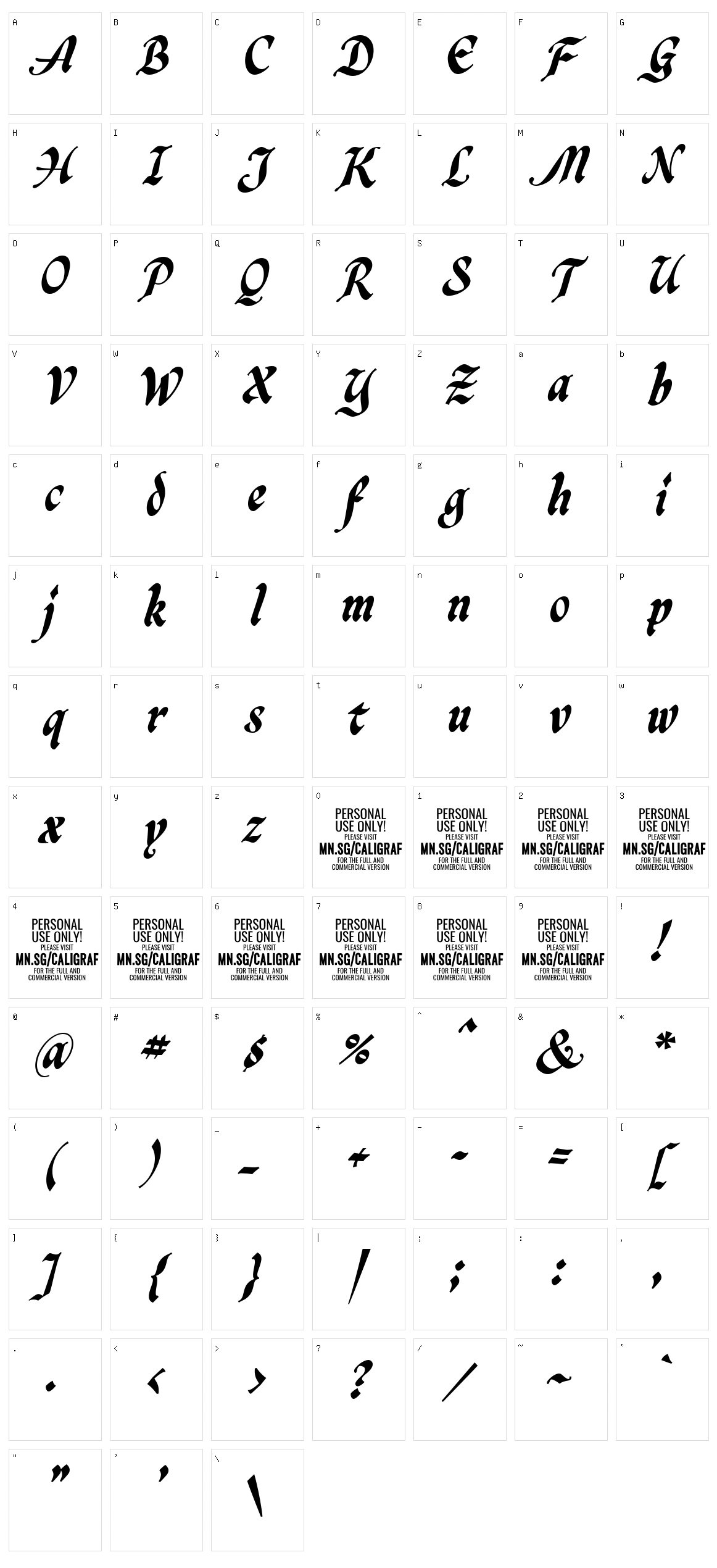
Caligraf is a classical calligraphy script.
It was drawn and created by Måns Grebäck during 2019 and 2020.
The character design blends traditional soft flowing handwriting with a modern, sharp look, and its angle and weight balance gives it a determined and progressive pace.
Caligraf is a multistyle font family, composed of Thin, Light, Regular, Bold and Black.
Its range ensures usability in any context, while also giving the ability to emphasize phrases or words.
Use it in an invitation, a diploma, a logotype or in a decorative body text.
Being a font with over 850 glyphs, it is guaranteed to contain all characters you'll ever need, including all punctuation and numbers.
It has an extensive lingual support, covering European and Asian Latin scripts.